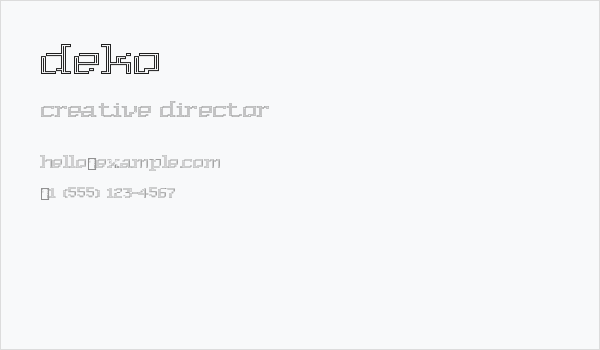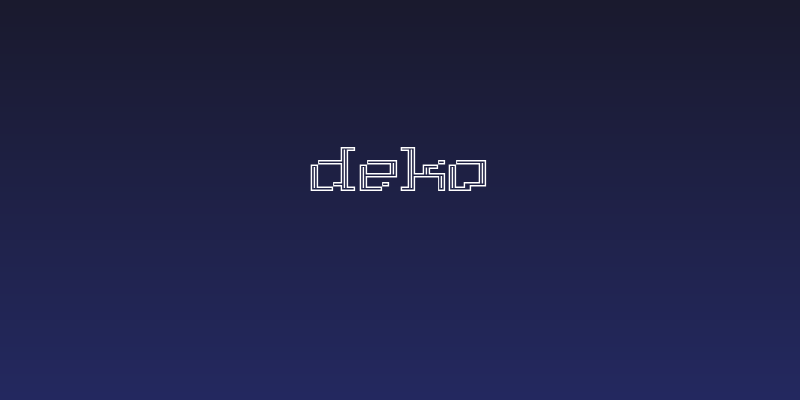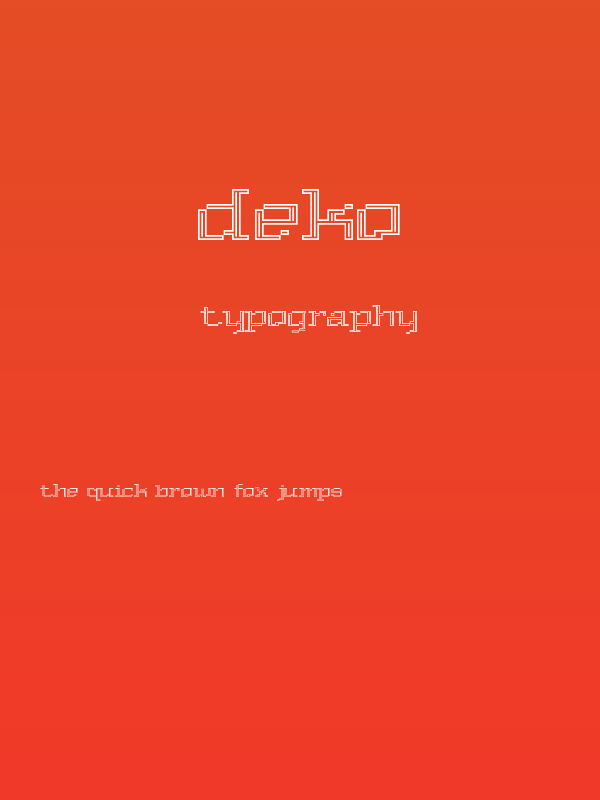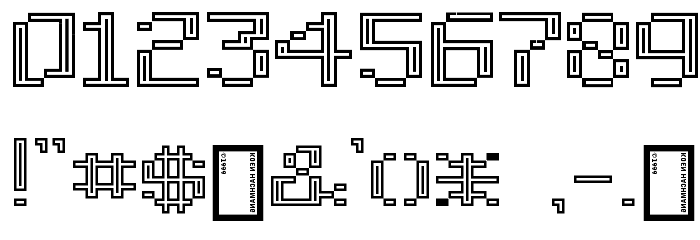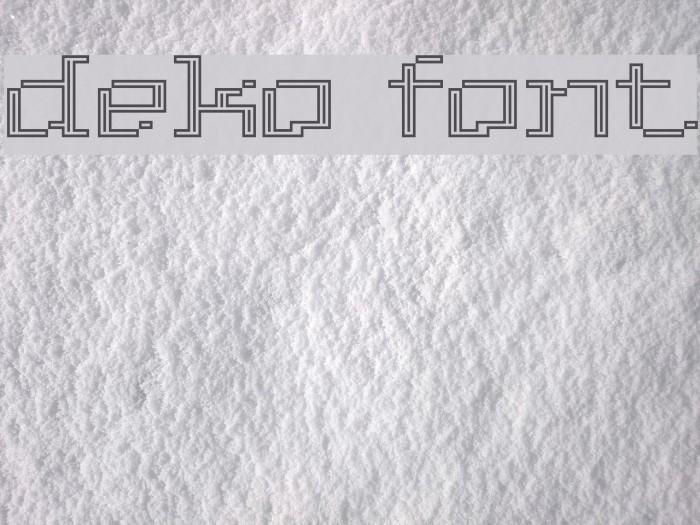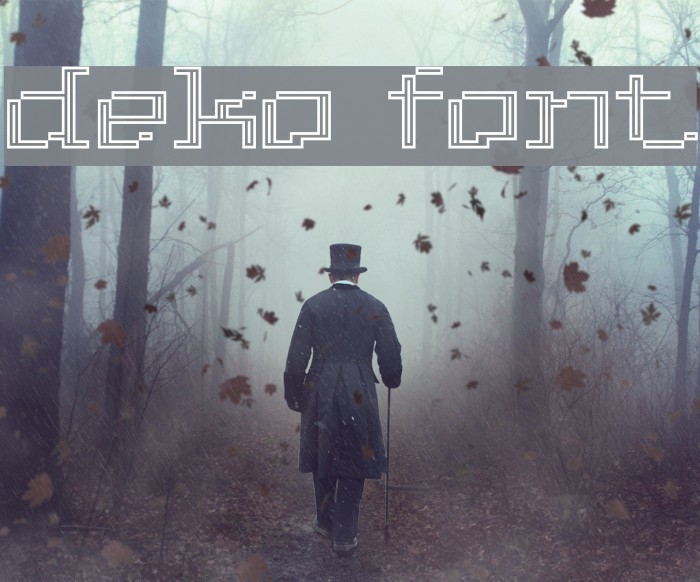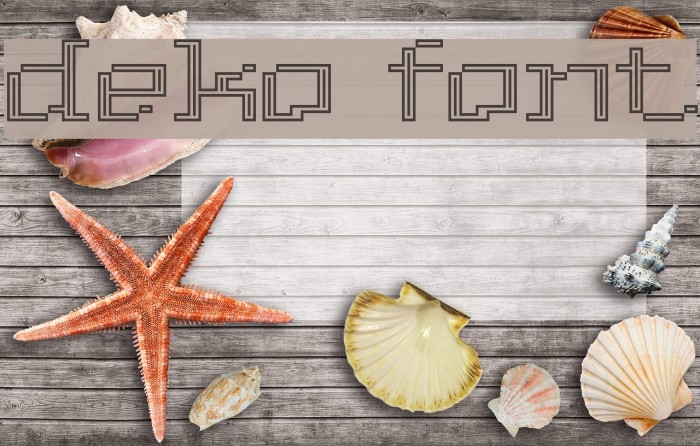
Deko Font
Deko Description
This font features a unique, geometric design with a pixelated, block-like structure. Each character is composed of straight lines and right angles, giving it a digital, retro appearance reminiscent of early computer graphics. The uppercase and lowercase letters maintain a consistent height, with the lowercase being slightly more compact. Numbers and special characters follow the same design principles, ensuring uniformity across the typeface. The font's distinct style is both modern and nostalgic, making it suitable for projects that aim to capture a tech-savvy or vintage digital aesthetic.
| Overall Style | Retro, Digital |
| Use Case | Logos, Posters, Digital Art |
| Proposed Projects | Ideal for video game design, tech-themed posters, digital art projects, and retro-style branding. |